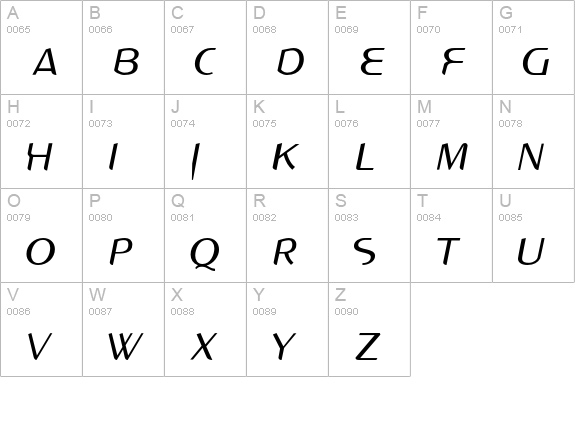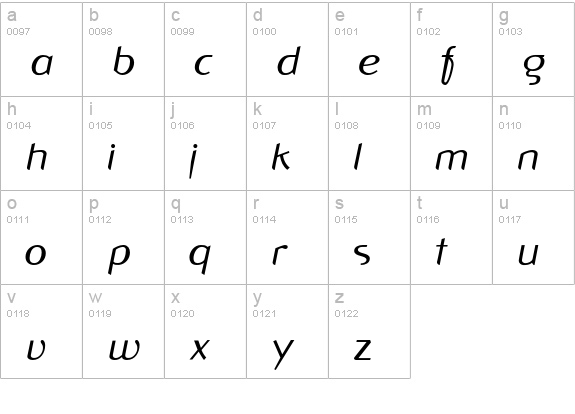
XYPERFORMULAIC-10R Font Details
XYPERFORMULAIC-10R is a stunning and versatile font that is sure to make your designs stand out. With its unique blend of modern and futuristic elements, this font is perfect for creating eye-catching graphics, posters, branding materials, and more. The sleek and stylish design of XYPERFORMULAIC-10R exudes confidence and sophistication, making it the ideal choice for projects that require a touch of elegance. Its clean lines and sharp angles give it a contemporary edge that will surely impress your audience. One of the best things about XYPERFORMULAIC-10R is that it is completely free to download at FontsMarket.com. This means that you can start using this amazing font in your projects right away, without having to worry about any additional costs. So why wait? Download XYPERFORMULAIC-10R today and take your designs to the next level with this exceptional font.